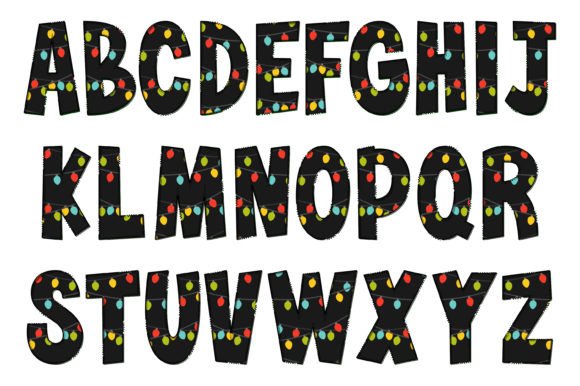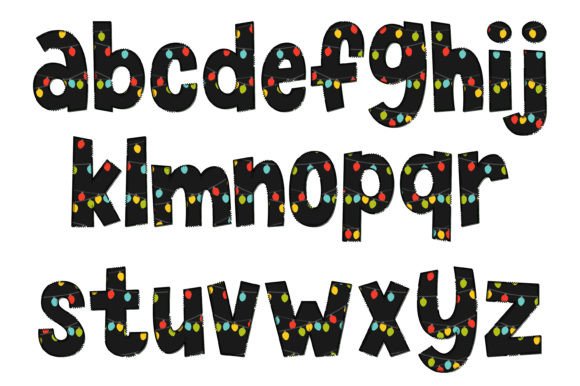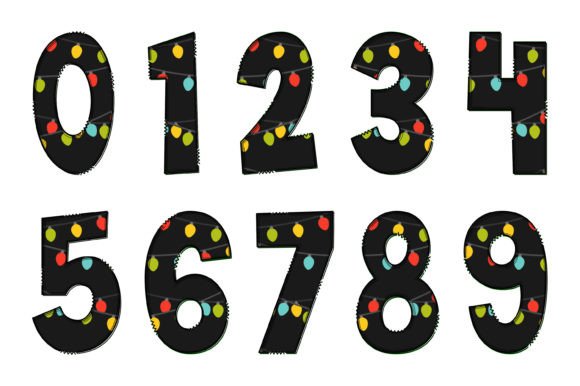
Introduction to Light Bulb Font
Remember that moment when you stumbled upon the perfect font for a creative project? The one that instantly elevated your design from ordinary to extraordinary? For many designers, that moment is a game-changer. And for those who have worked with the whimsical and colorful Light Bulb Font, it’s a moment that never gets old.
As a versatile design resource, the Light Bulb Font is a go-to choice for designers looking to add a playful touch to their work. With its high-quality, transparent background, and easy-to-read letters, this font is perfect for children’s books, posters, invitations, greeting cards, and more. Whether you’re working on a free download or a paid project, the Light Bulb Font is sure to bring a smile to your face and a touch of magic to your design.
Key Features of Light Bulb Font
- Unique, creative design: This font is perfect for any high-quality project that requires a touch of whimsy and imagination.
- Transparent background: The transparent background of Light Bulb Font makes it easy to use as a design resource and customize to fit any project.
- High-resolution design: This font is designed at 300 DPI, making it perfect for use in high-resolution designs and print projects.
- Perfect for creative projects: Light Bulb Font is ideal for use in creative projects such as logos, branding, and packaging design.
- Easy to use: With its simple and intuitive design, Light Bulb Font is easy to use and perfect for designers of all skill levels.
Honest Review: Light Bulb Font
I recently came across the Light Bulb Font, and I was excited to try it out for a creative project. The font is available for free download, which is always a plus. Upon closer inspection, I was impressed by the high quality of the design. The font has a unique, futuristic feel to it, which could be perfect for a sci-fi themed project.
One of the standout features of the Light Bulb Font is its transparent background, which makes it easy to place over any image or design without worrying about distracting lines or shapes. This makes it a valuable resource for designers who need to create visually appealing and professional-looking designs.
- ✨ Unique and futuristic design aesthetic
- ✨ High quality design
- ✨ Transparent background for easy placement
- ⚠️ Limited character set, which may not be suitable for longer text-based projects
- ⚠️ Not all platforms may support the font, so be sure to test it before using
Overall, I’m impressed with the Light Bulb Font, and I think it could be a valuable addition to any designer’s toolkit. With a little creativity, it could add a unique touch to a wide range of projects.
The Light Bulb Font is a unique and creative design resource perfect for any high-quality project. With its transparent background and simple design, it’s easy to incorporate into your next creative project.
The Light Bulb Font is perfect for use in a variety of creative projects, including:
- Posters
- Use the font in combination with other design elements
- Take advantage of the font’s transparent background to create a seamless design